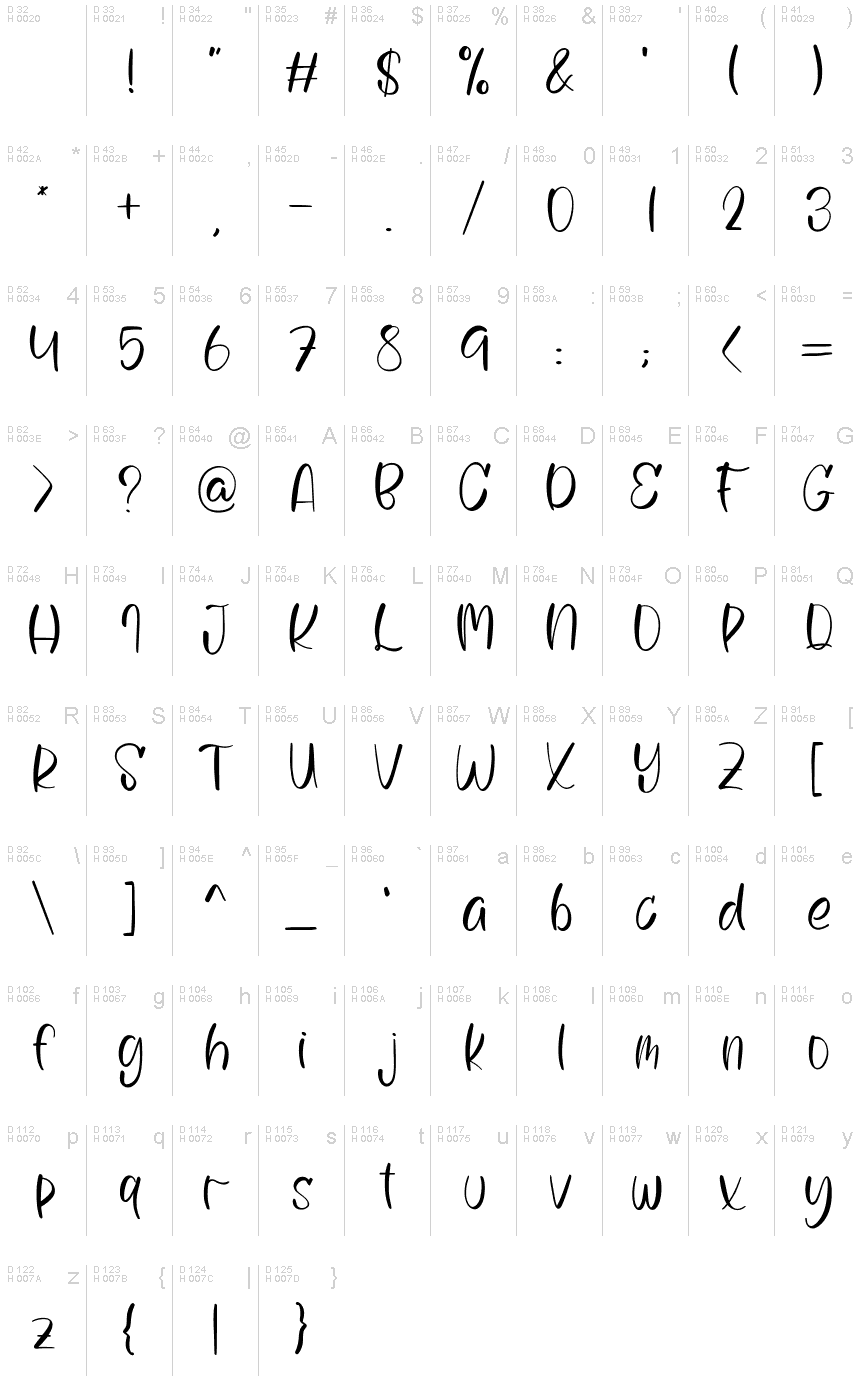
Bubble Peanut
Bubble Peanut, designed by Qwrtype Foundry, is a charming script font that captures the whimsy of childhood. Its semi-light weight and semi-condensed width lend a playful elegance to any project. Bubble Peanut is perfect for creating invitations to children's parties or adding a touch of fun to greeting cards. Its casual yet sophisticated style also makes it suitable for branding products targeted towards parents and children, such as toys or clothing lines. With Bubble Peanut, your designs will stand out with its unique letterforms and delightful bounce.